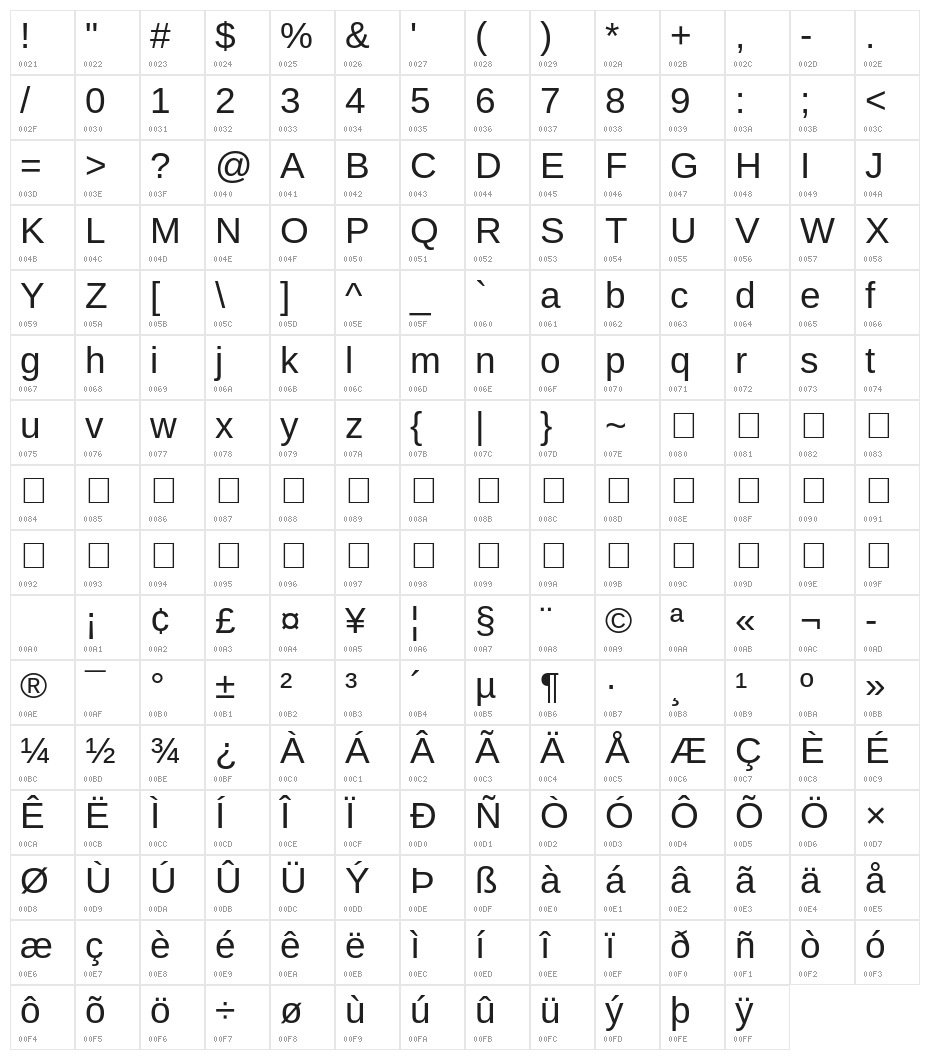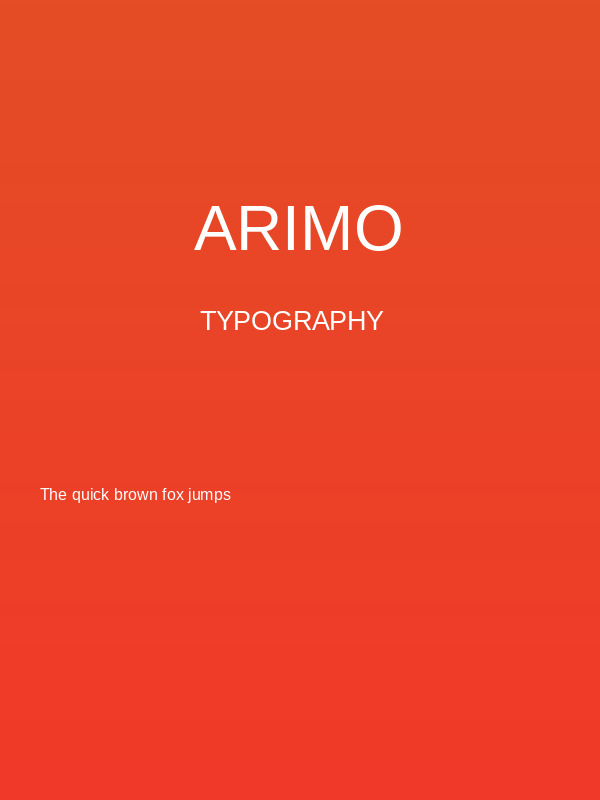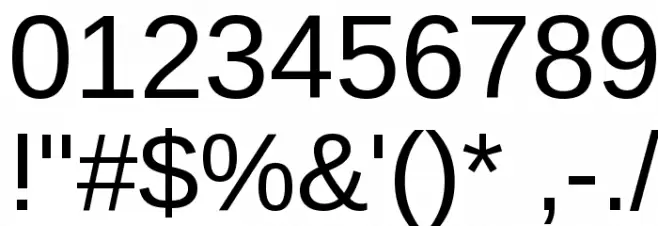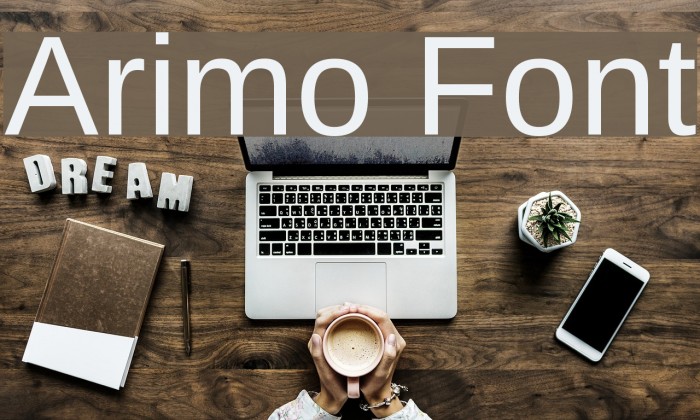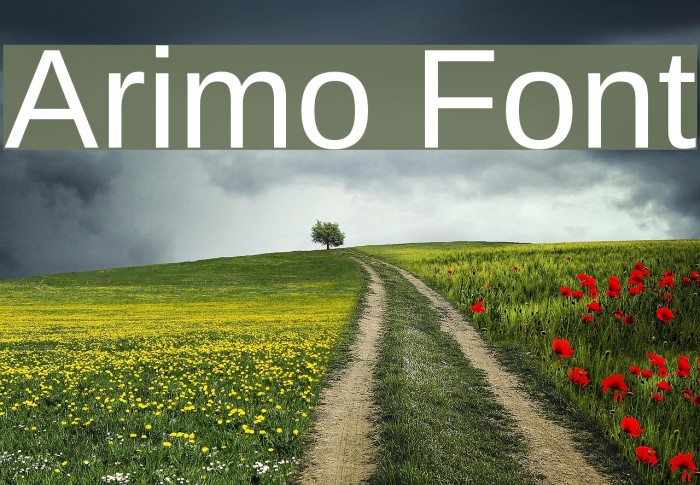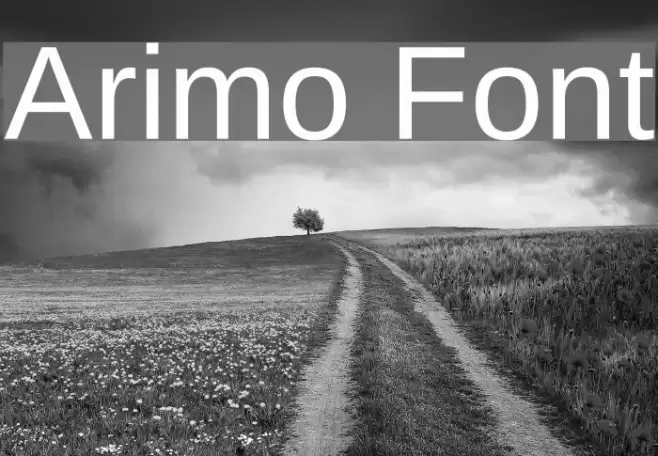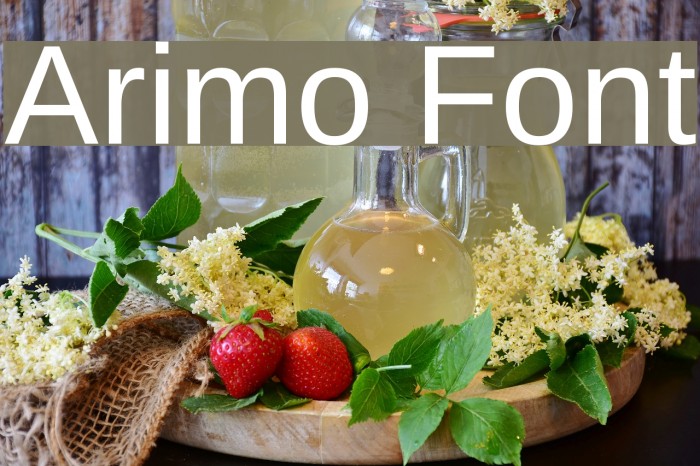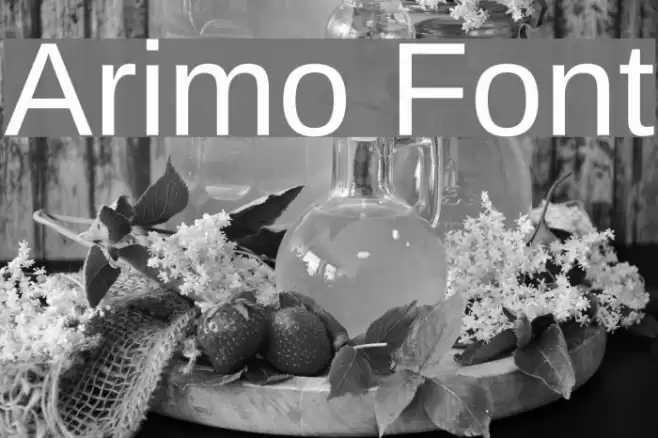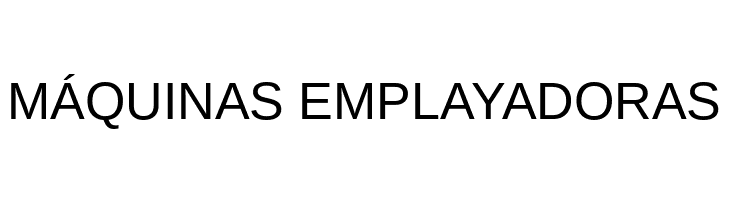
Arimo Font
Arimo Description
This typeface features a clean and modern sans-serif design, characterized by its balanced proportions and clear readability. The uppercase and lowercase letters maintain a consistent stroke width, contributing to a uniform appearance. The numerals are straightforward and align well with the overall geometric style. Special characters are designed with simplicity in mind, ensuring they integrate seamlessly with the rest of the character set. The font's design is versatile, making it suitable for a wide range of applications, from digital interfaces to print media.